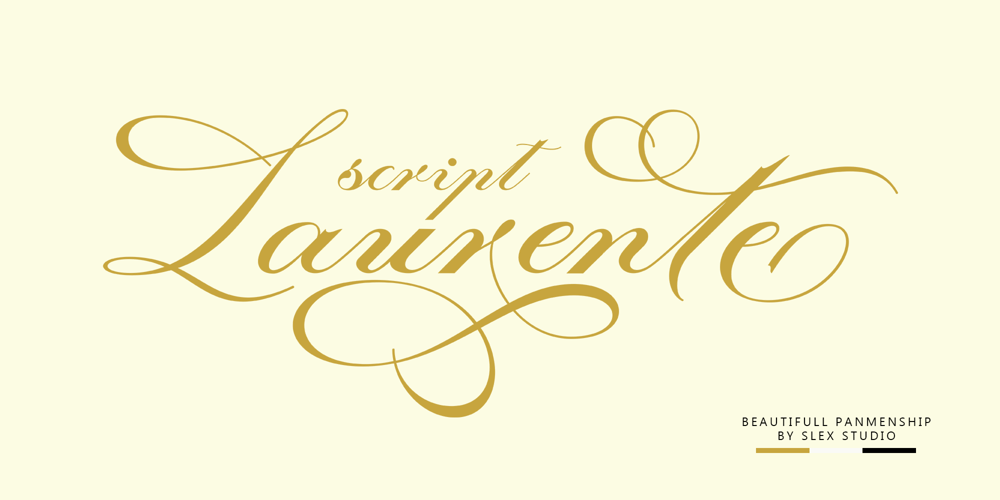
Laurente Script Font Font Family was designed by Muhammad Rayyan and published by Slex Studio. Laurente Script Font contains 1 styles and family package options. Laurente Script is a sophisticated calligraphy font characterized by smooth curves, clean lines and the finest subtle strokes. Elegant and refined in its most basic script form, a range of Swash and Decorative alternatives (including unique local styles) allow users to elevate their designs to higher levels of aesthetic beauty and elegance. Laurente Script contains 593 glyphs, among which are, alternate decorations and ligatures. Use professional software that supports many OpenType features.